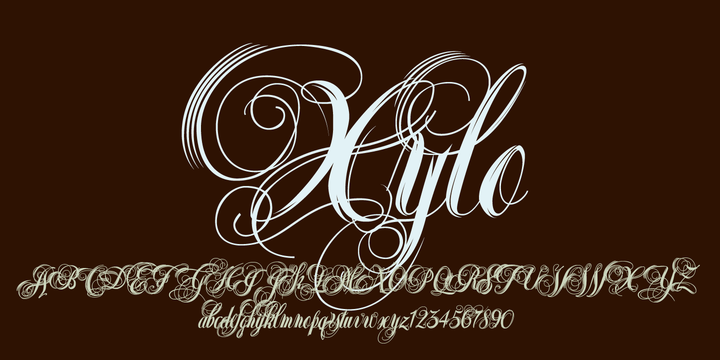
25+ Xylo Script Font Best Fonts. This font is in the regular style. Xyloscript is my first script with a woodcut look to it. This font was posted on 09 may 2015 and is called xylo font. Xylo script is a typeface designed by gert wiescher, and is available for desktop, web, app, epub, and server. Sign up for a new user account. Xylo is greek and means wood. Download xylo font with regular style. Download free fonts for mac, windows and linux. Buy xylo script font from wiescher design on fonts.com. Try, buy and download these fonts now! Quantity should be less than 2,140,000,000. Xylo script font gert wiescher decorative. This script is very complex and that's causing some font managers to say the font is corrupted. Votes, rated based on results identification. Desktop fonts are designed to be installed on a computer for use with applications.
Xylo Script Font By Wiescher Design Font Bros. Xylo script font gert wiescher decorative. This script is very complex and that's causing some font managers to say the font is corrupted. This font is in the regular style. Xylo is greek and means wood. Sign up for a new user account. Desktop fonts are designed to be installed on a computer for use with applications. Buy xylo script font from wiescher design on fonts.com. Download xylo font with regular style. Votes, rated based on results identification. Xylo script is a typeface designed by gert wiescher, and is available for desktop, web, app, epub, and server. Quantity should be less than 2,140,000,000. Download free fonts for mac, windows and linux. Xyloscript is my first script with a woodcut look to it. Try, buy and download these fonts now! This font was posted on 09 may 2015 and is called xylo font.
Stunning Script Fonts Creative Market. This font was posted on 09 may 2015 and is called xylo font. Xylo is greek and means wood. Desktop fonts are designed to be installed on a computer for use with applications. Xylo script is a typeface designed by gert wiescher, and is available for desktop, web, app, epub, and server. This script is very complex and that's causing some font managers to say the font is corrupted. Download xylo font with regular style. This font is in the regular style. Quantity should be less than 2,140,000,000. Download free fonts for mac, windows and linux. Buy xylo script font from wiescher design on fonts.com. Xyloscript is my first script with a woodcut look to it. Xylo script font gert wiescher decorative. Try, buy and download these fonts now! Sign up for a new user account. Votes, rated based on results identification.
Xylo Script Regular Font What Font Is. Download free fonts for mac, windows and linux. Buy xylo script font from wiescher design on fonts.com. Download xylo font with regular style. Xylo is greek and means wood. Xyloscript is my first script with a woodcut look to it. This script is very complex and that's causing some font managers to say the font is corrupted. Votes, rated based on results identification. Desktop fonts are designed to be installed on a computer for use with applications. Quantity should be less than 2,140,000,000. Xylo script is a typeface designed by gert wiescher, and is available for desktop, web, app, epub, and server. This font is in the regular style. This font was posted on 09 may 2015 and is called xylo font. Sign up for a new user account. Try, buy and download these fonts now! Xylo script font gert wiescher decorative.
Xylo Script Font. Sign up for a new user account. This font was posted on 09 may 2015 and is called xylo font. Try, buy and download these fonts now! Votes, rated based on results identification. Xylo script is a typeface designed by gert wiescher, and is available for desktop, web, app, epub, and server. Download xylo font with regular style. This script is very complex and that's causing some font managers to say the font is corrupted. Download free fonts for mac, windows and linux. This font is in the regular style. Xylo script font gert wiescher decorative. Xyloscript is my first script with a woodcut look to it. Desktop fonts are designed to be installed on a computer for use with applications. Xylo is greek and means wood. Buy xylo script font from wiescher design on fonts.com. Quantity should be less than 2,140,000,000.